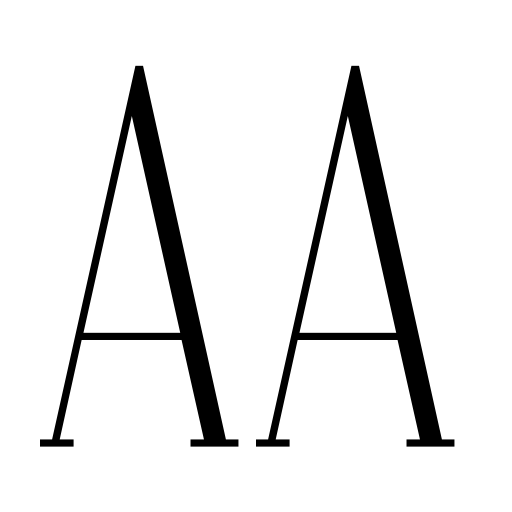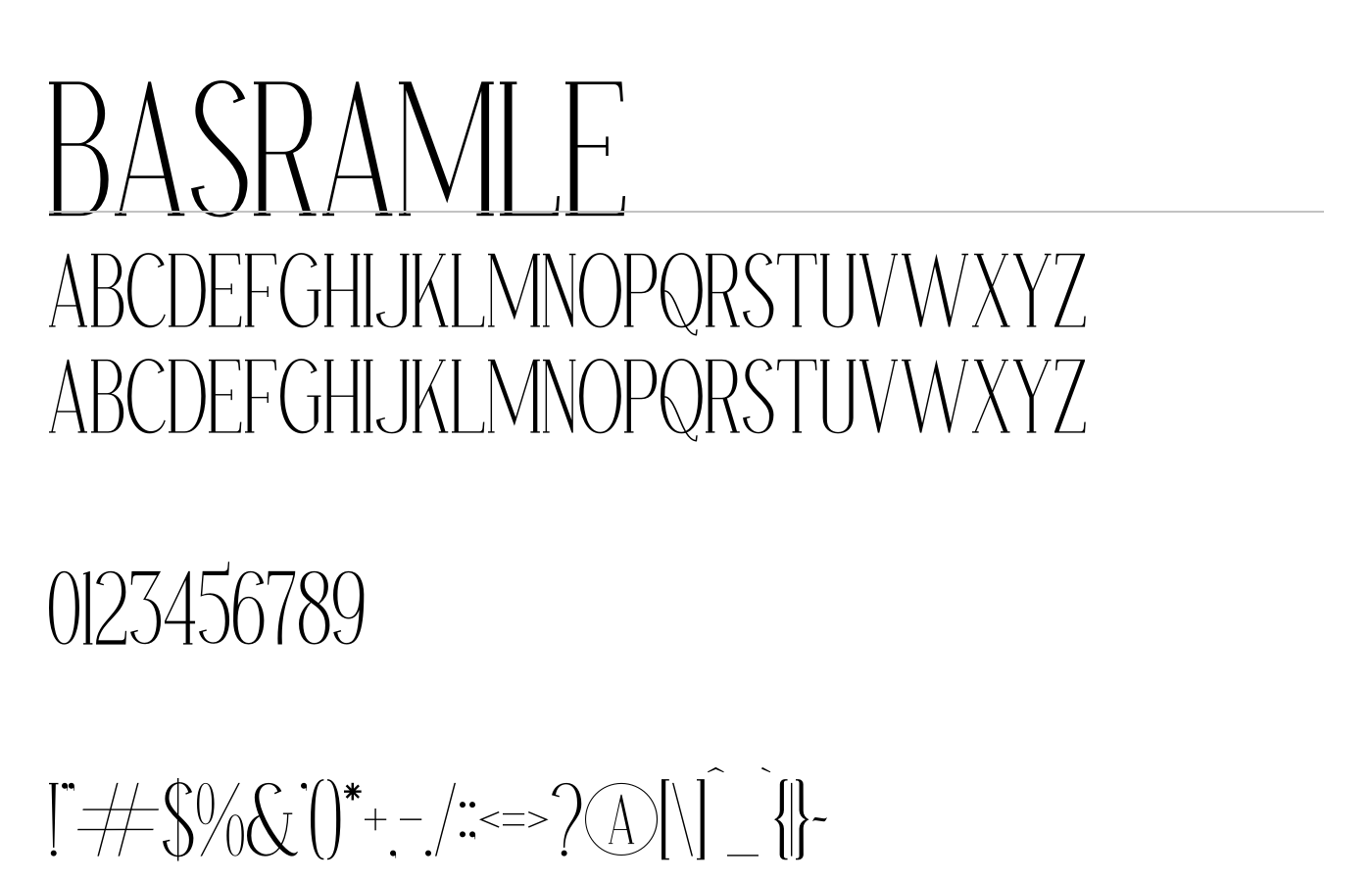
Basramle is an elegant, ultra-condensed serif font with a high contrast between thin and thick strokes, giving it a refined and sophisticated look. Its tall, narrow letterforms and delicate serifs evoke a vintage yet modern luxury feel, making it ideal for stylish branding, upscale editorial headlines, and high-fashion packaging where a dramatic and distinctive presence is desired. This font stands out best in large sizes where its fine details and unique shapes can be fully appreciated.
Basramle Font
About Basramle Font